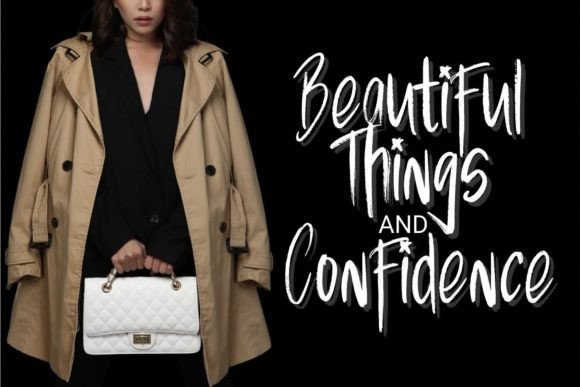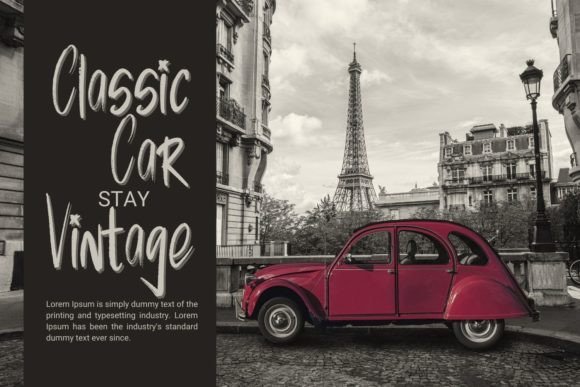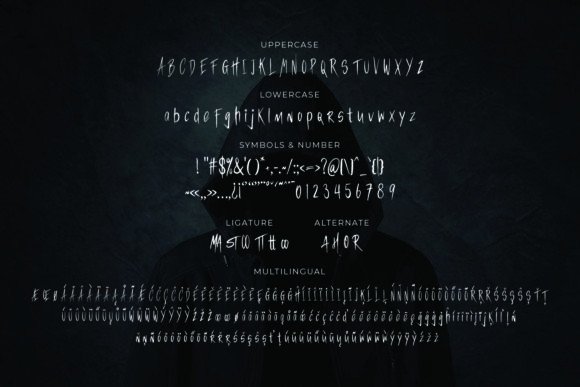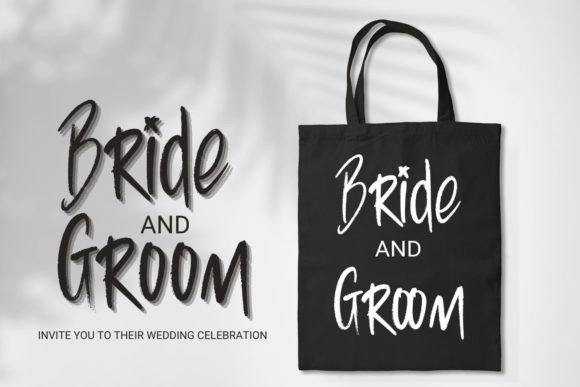
The Ultimate Design Game-Changer: Blackovin Font
I’ll never forget the frustration of working on a design project, hours spent searching for the perfect font, only to come up empty-handed. My client was counting on me to deliver a visually stunning brochure, but I was stuck on the typography. That’s when I stumbled upon Blackovin Font, a modern and trendy handwritten brush font that completely transformed my design game. In this article, I’ll share my experience with Blackovin, its features, and how to make the most of it in various design platforms.
An Honest Review of Blackovin Font
What I Love About Blackovin ✨
- 💥 **Instant visual impact**: Blackovin’s bold, expressive strokes add a touch of personality to any design.
- ✅ **Versatility**: This font is perfect for a wide range of projects, from branding and advertising to packaging and digital media.
- 🎨 **Artistic feel**: Blackovin’s handwritten brush style gives designs a human, imperfect touch that’s hard to achieve with traditional fonts.
- 📚 **Extensive character set**: With a vast range of glyphs, stylistic alternates, and OpenType features, Blackovin offers endless creative possibilities.
While Blackovin is an exceptional font, it’s not without its limitations. ⚠️ Some users may find that the font’s bold strokes can be overwhelming in certain contexts, such as in large blocks of text or when used alongside other bold fonts.
The Story Behind Blackovin Font
Blackovin Font was designed by a team of typographers who wanted to create a font that would add a touch of personality to any design. Inspired by modern calligraphy and handwritten scripts, Blackovin was crafted to be both elegant and expressive. The font’s creators aimed to produce a font that would be versatile, legible, and above all, fun to use.
Q: What type of designs is Blackovin best suited for?
A: Blackovin is a versatile font that’s perfect for a wide range of designs, including branding, advertising, packaging, digital media, and more.
Q: Is Blackovin a difficult font to read?
A: While Blackovin is a bold, expressive font, it’s still relatively easy to read. However, it’s best used in moderation, such as in headings or titles, rather than in large blocks of text.